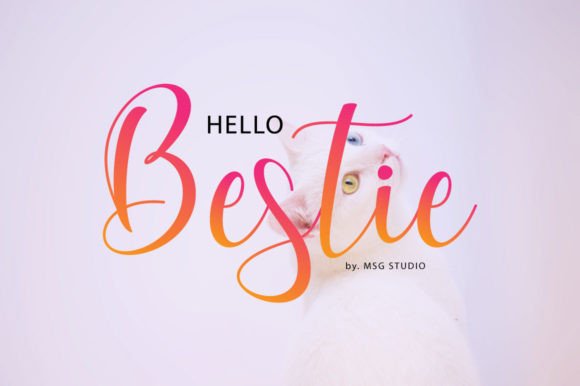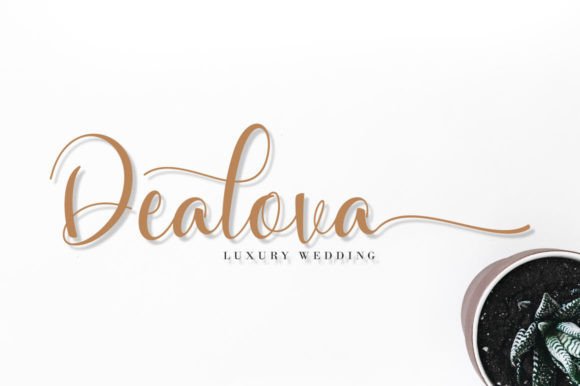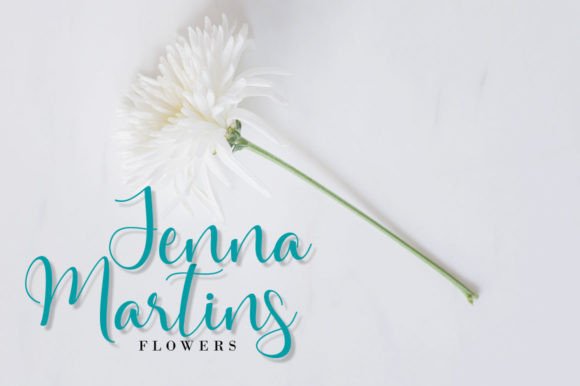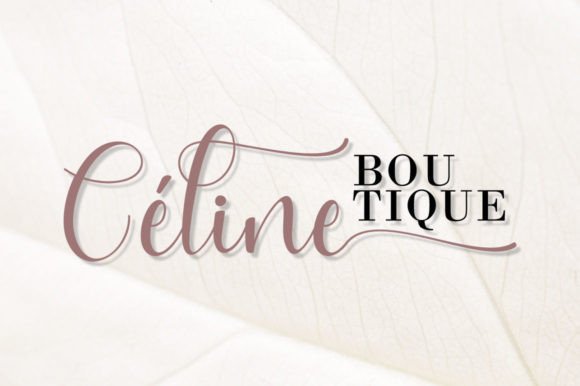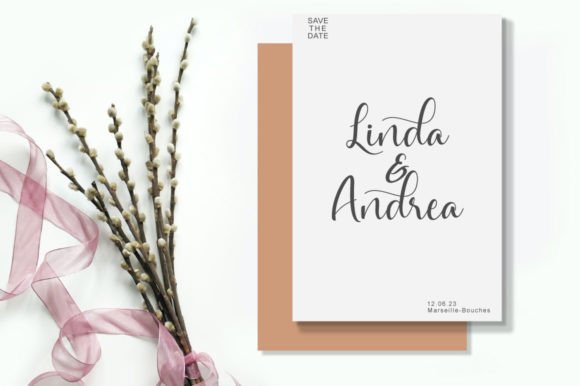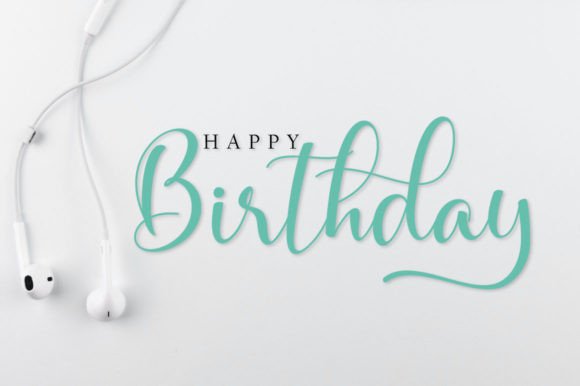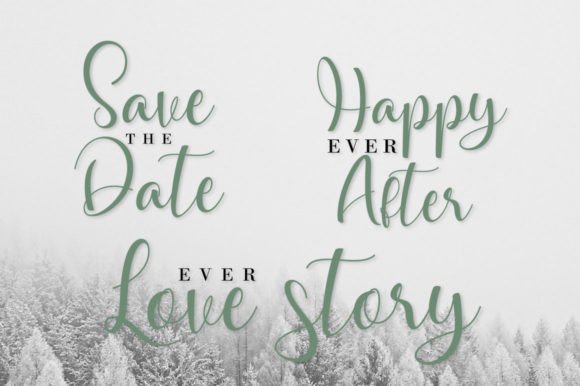
Hello Bestie Font
About Hello Bestie Font
Hello Bestie is a modern script with a handmade calligraphy style, decorative characters, and a dancing baseline! So beautiful on invitations like greeting cards, branding materials, business cards, quotes, posters, and more!!